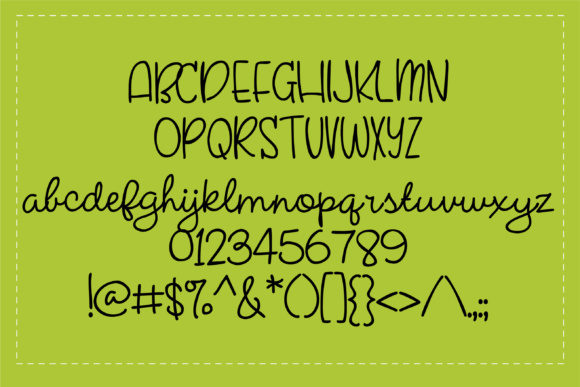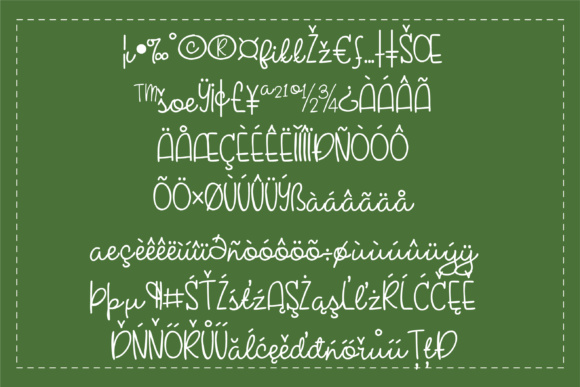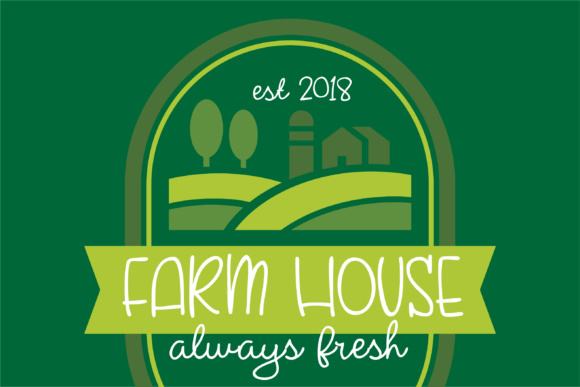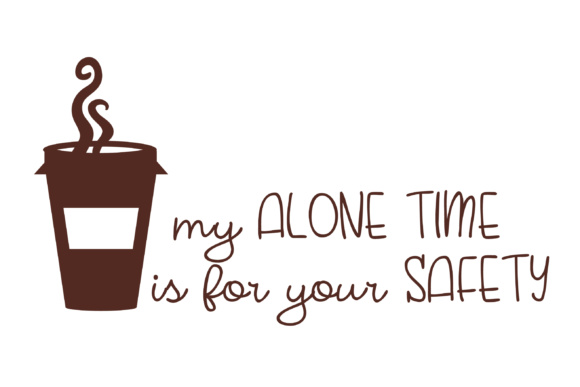
Farmhouse Font
About Farmhouse Font
Farmhouse is a cute font duo in one font. The uppercase looks great when used alone and has a printed quality to it. The lowercase is a casual cursive.